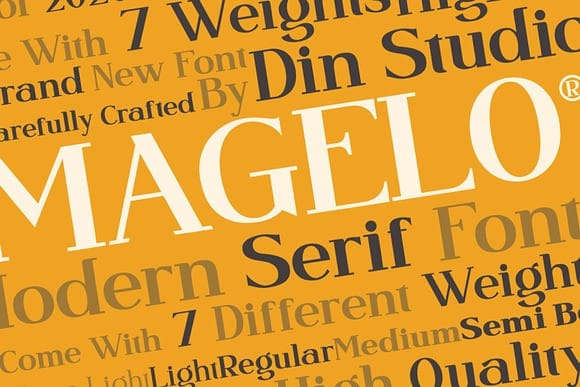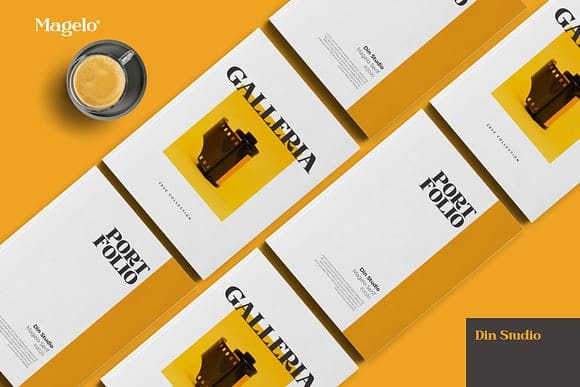
Magelo Font
Magelo Font – A Serif Font Family. With this package you will get many options to maximize your designs with stylish fonts. It will delight and add brightness, modernity and elegance to wherever it is used.